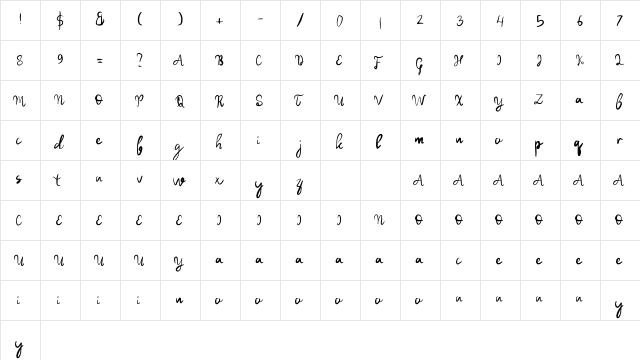
Sekaran Regular
Design Context for Sekaran Typeface
Sekaran is a composed and adaptable typeface that performs quietly and consistently across a wide range of design contexts.